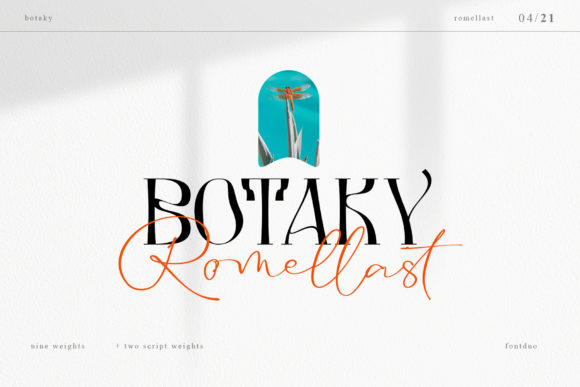
Journey into the realm of Botaky Romellast, a captivating display font duo that seamlessly blends the elegance of serifs with the charm of scripts, leaving an everlasting impression on your designs. This font family is not just a collection of letters; it's an open door to unlocking a world of creative possibilities.
Designed by Alit Design, the Botaky Romellast font family is a testament to the power of typography. Its meticulously crafted curves and delicate strokes evoke a sense of sophistication and grace, while its harmonious balance ensures that each character stands out as a work of art. Whether you're crafting logos, branding materials, invitations, or simply adding a touch of elegance to your digital creations, Botaky Romellast is the perfect companion.
Step into the world of Botaky Romellast and prepare to be captivated by its timeless beauty. It's a font that breathes life into your words, transforming them into elegant expressions that demand attention. With Botaky Romellast, your designs will radiate an aura of sophistication and charm, leaving a lasting impression on your audience.